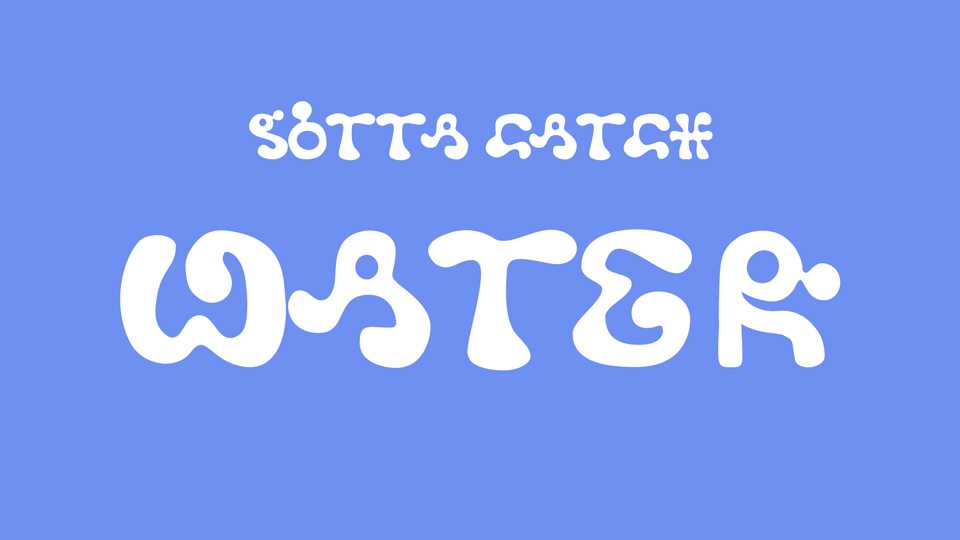
Download Gotta Catch Water font, an experimental smooth and rounded typeface designed during a type design initiation workshop given by Lucas Descroix in March 2021.
Designer: Sarah Marouzé